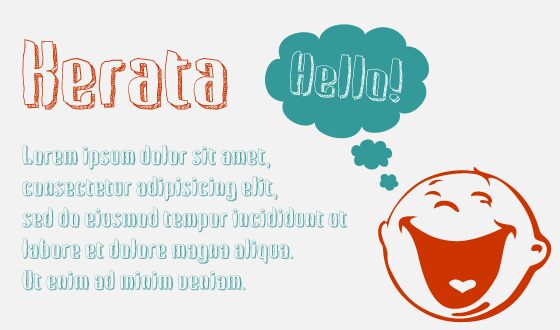
Kerata by Beycan Cetin is a free distorted display font with irregular block letters and a hand-drawn 3D effect. Uneven outlines, offset shading, and crooked edges give the forms a rough, animated look.
It is especially convincing on posters, where the lettering can echo comic art or cut-paper illustration. The same exaggerated construction suits game graphics, music merchandise, and youth-focused event material. For product branding, its sketched depth can turn a name into an illustrated label rather than ordinary text.